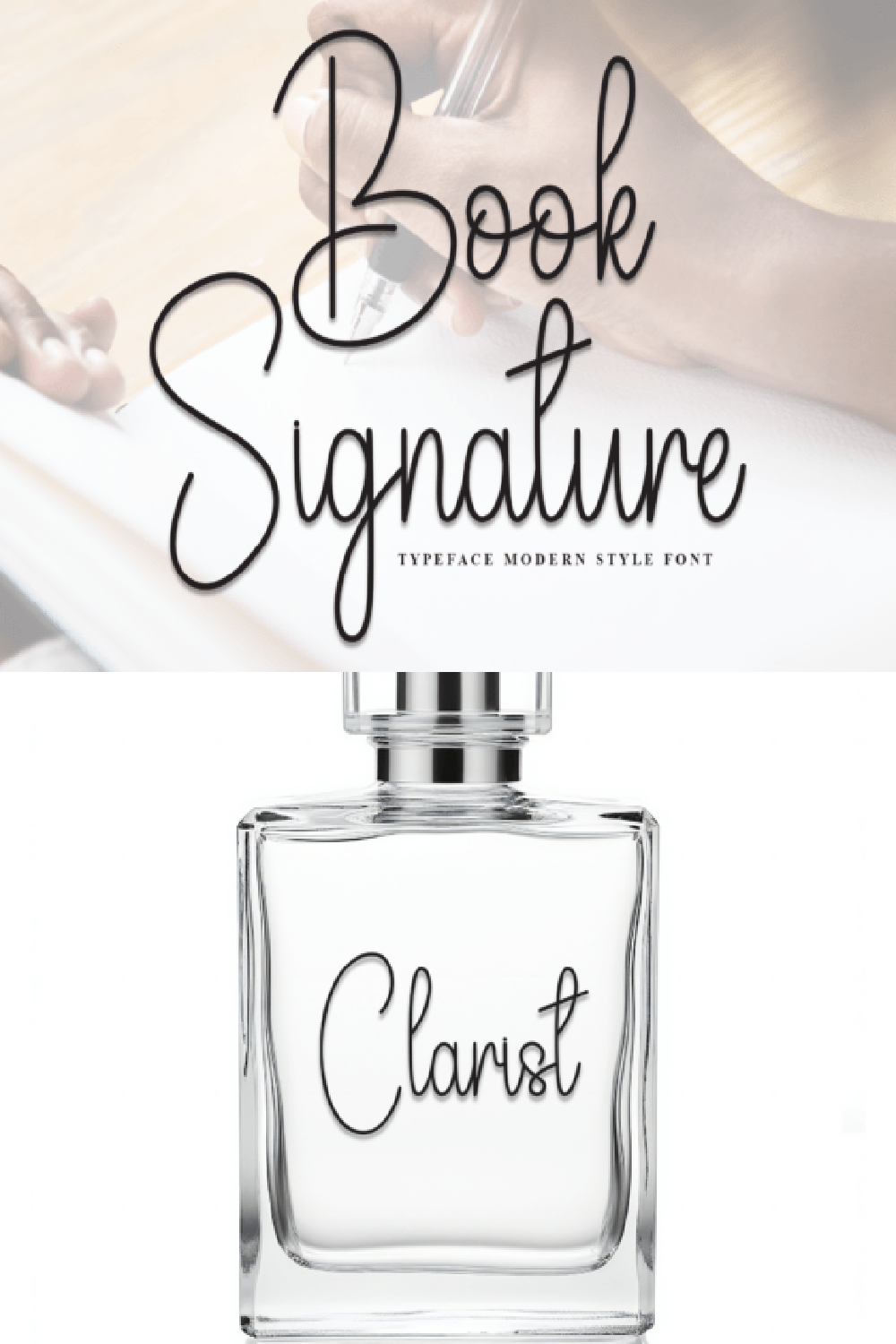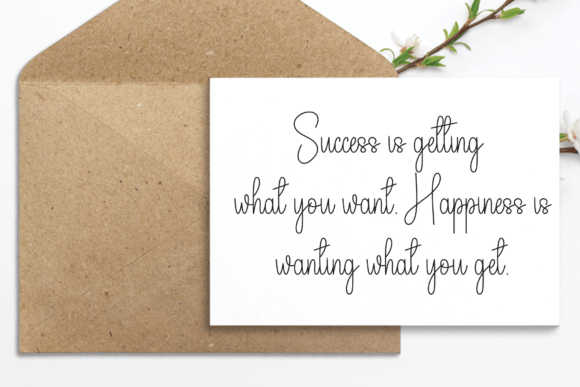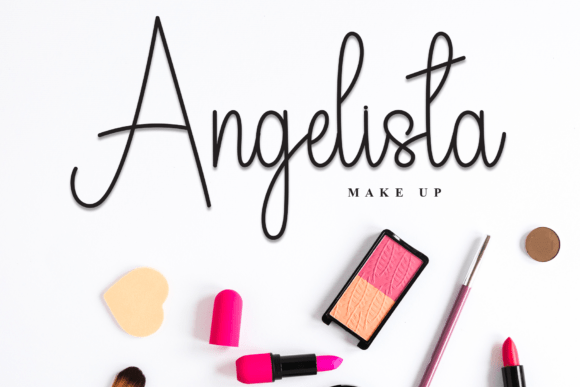
Book Signature Font
About the Book Signature Font
Experience the unique personality of Book Signature Font, a font designed for impact. Introducing a charming and warm-hearted display font fashioned by hand – an asset that exemplifies the blend of cute and entertaining features. Refined with an amiable touch, this font breathes life into your design outlets, be it wedding invitations, greeting cards, or any platform that begs a sprinkle of fun! Boasting a unique personality, it’s a one-of-a-kind tool that enchants with its inviting appeal, making any message impressively delightful and engaging to the viewer.